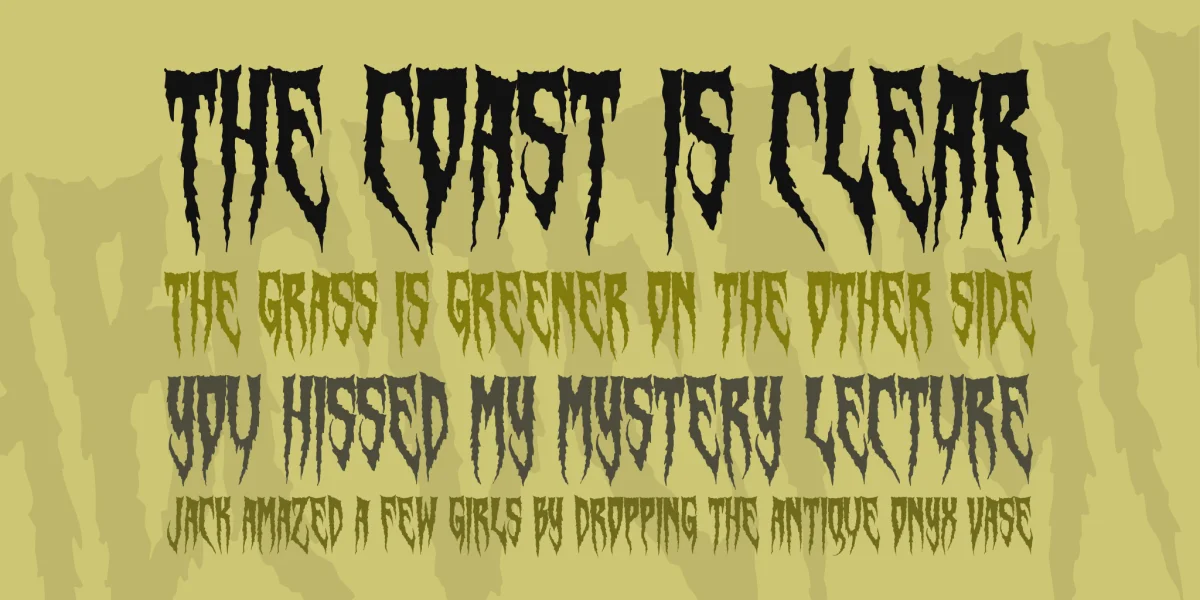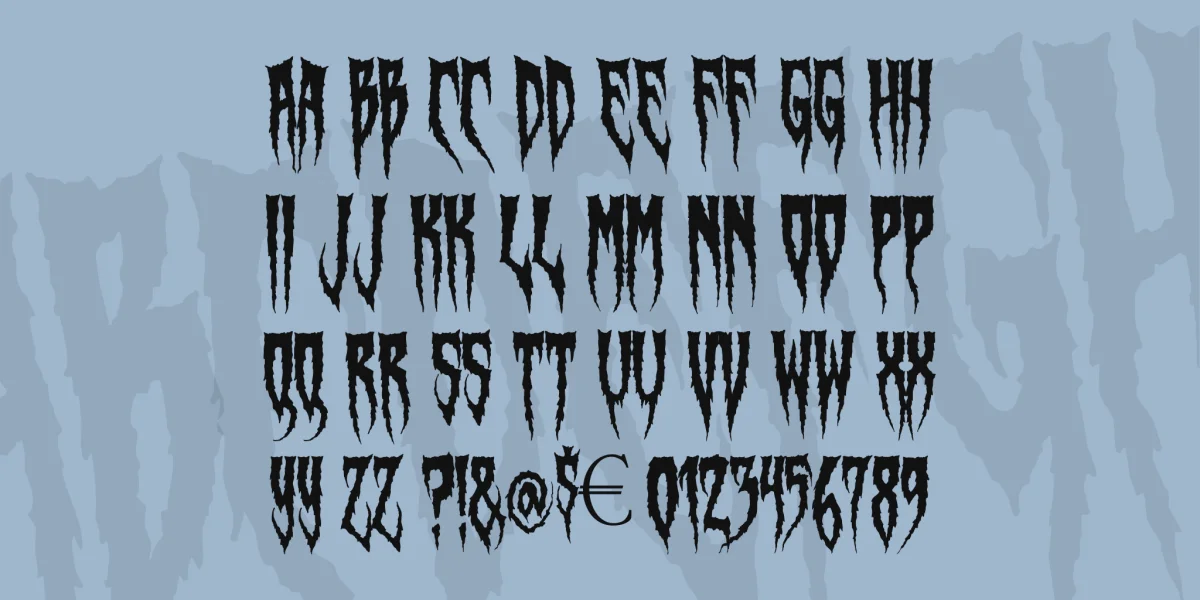
Swamp Witch Font by Chad Savage. Created 2009, hand-lettered just after Halloween. This is a free font, and I mean FREE. Use it however you want, for whatever you want. If you make something cool with it, I'd love to see it - email me at  and tell me about it. If you offer it for download on your own font site, PLEASE include this Read Me. That's not too much to ask, is it? This font is intended for specialty and graphic uses. It will look just awful if used in a paragraph format. For more free fonts and other downloadable goodies, visit www.sinisterfonts.com